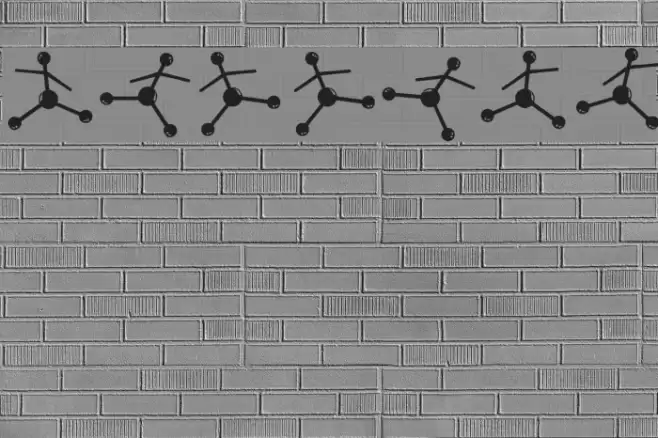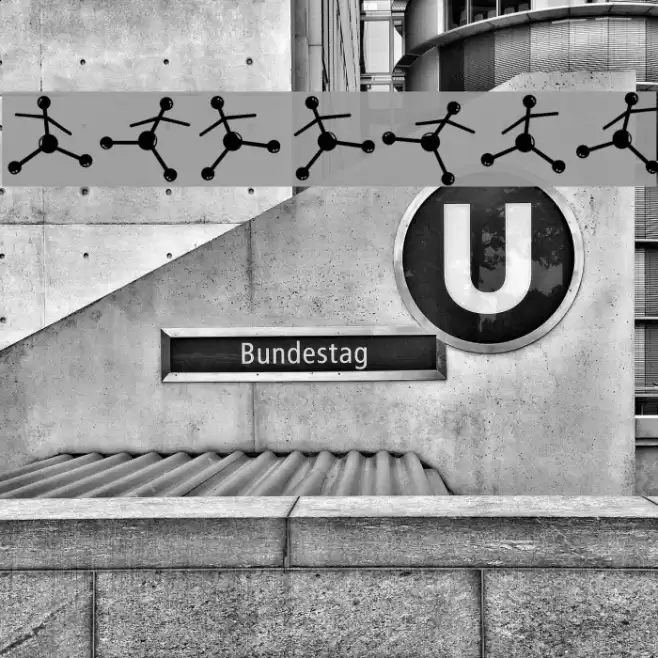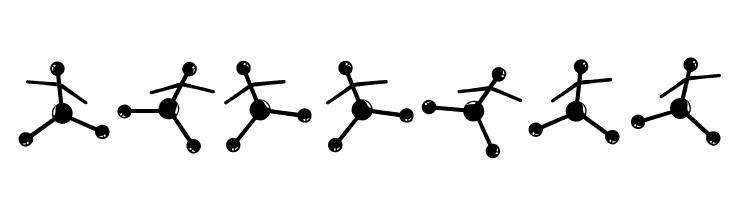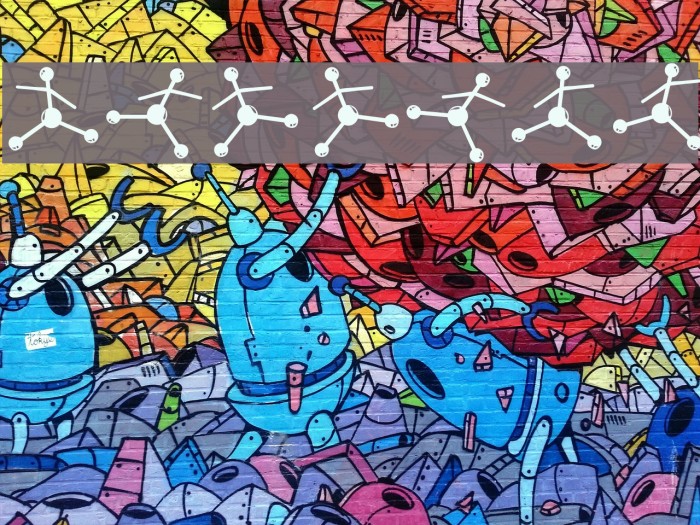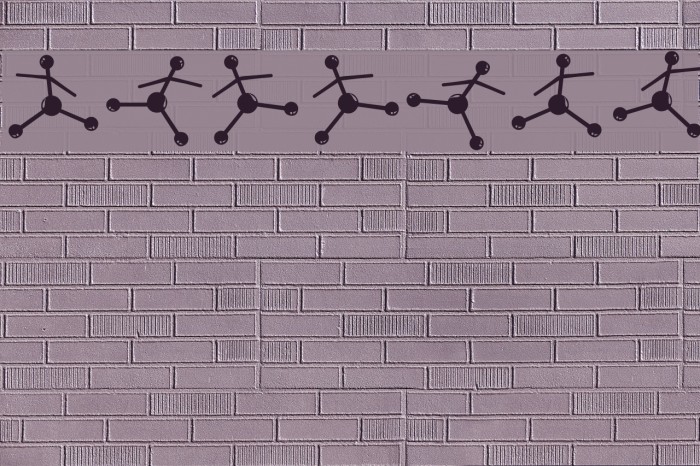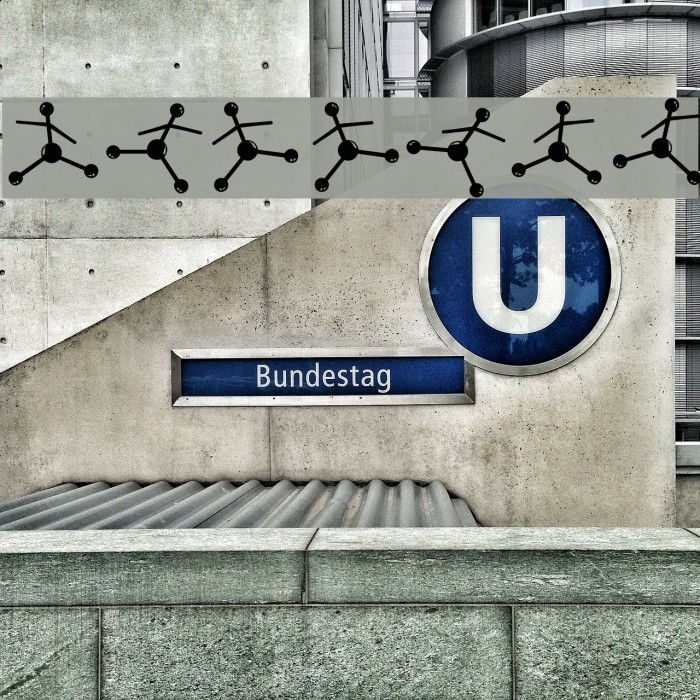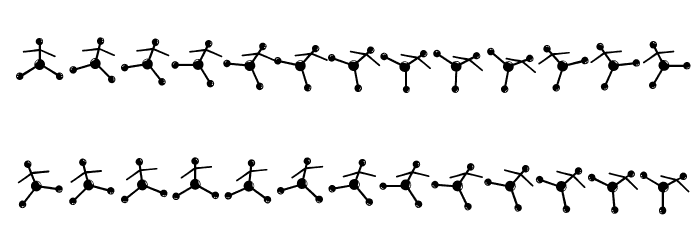
Runners Font
Runners Description
A playful, decorative font where each character is represented by a stick figure in a running pose, with limbs and head formed by lines and dots, creating a sense of motion and energy.
Stick-figure runners form each letter in a lively, animated style from Uncategorized fonts.
- Proposed Projects: Children’s books, sports event posters, playful branding, activity flyers, educational materials.
- Overall Style: Playful, Animated, Decorative
- Use Case: Logos, Headlines, Posters, Themed graphics